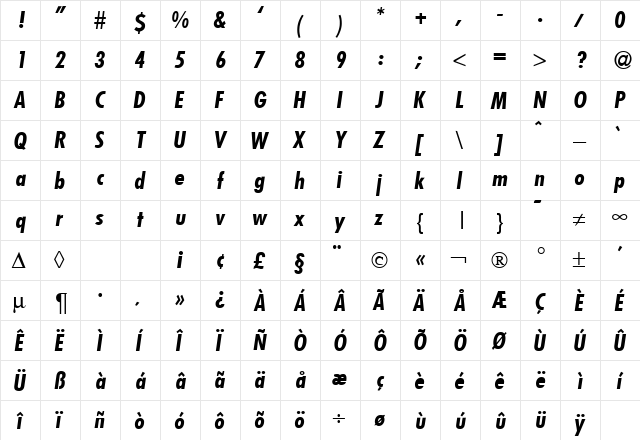
FunctionCondTwo BoldItalic Font Preview
FunctionCondTwo BoldItalic
Design Context for FunctionCondTwo Typeface
FunctionCondTwo trades formality for fun, with bouncy, characterful letterforms that bring warmth and energy to any project. Its italic angle brings a sense of urgency and motion to the letterforms.
Font Pairing: Pairs well with a rounded or humanist sans for body copy, maintaining the friendly tone without relying on FunctionCondTwo to carry extended reading.
Pro Tip: Avoid using FunctionCondTwo for long passages of text — it works best for headlines, labels, and short calls to action.